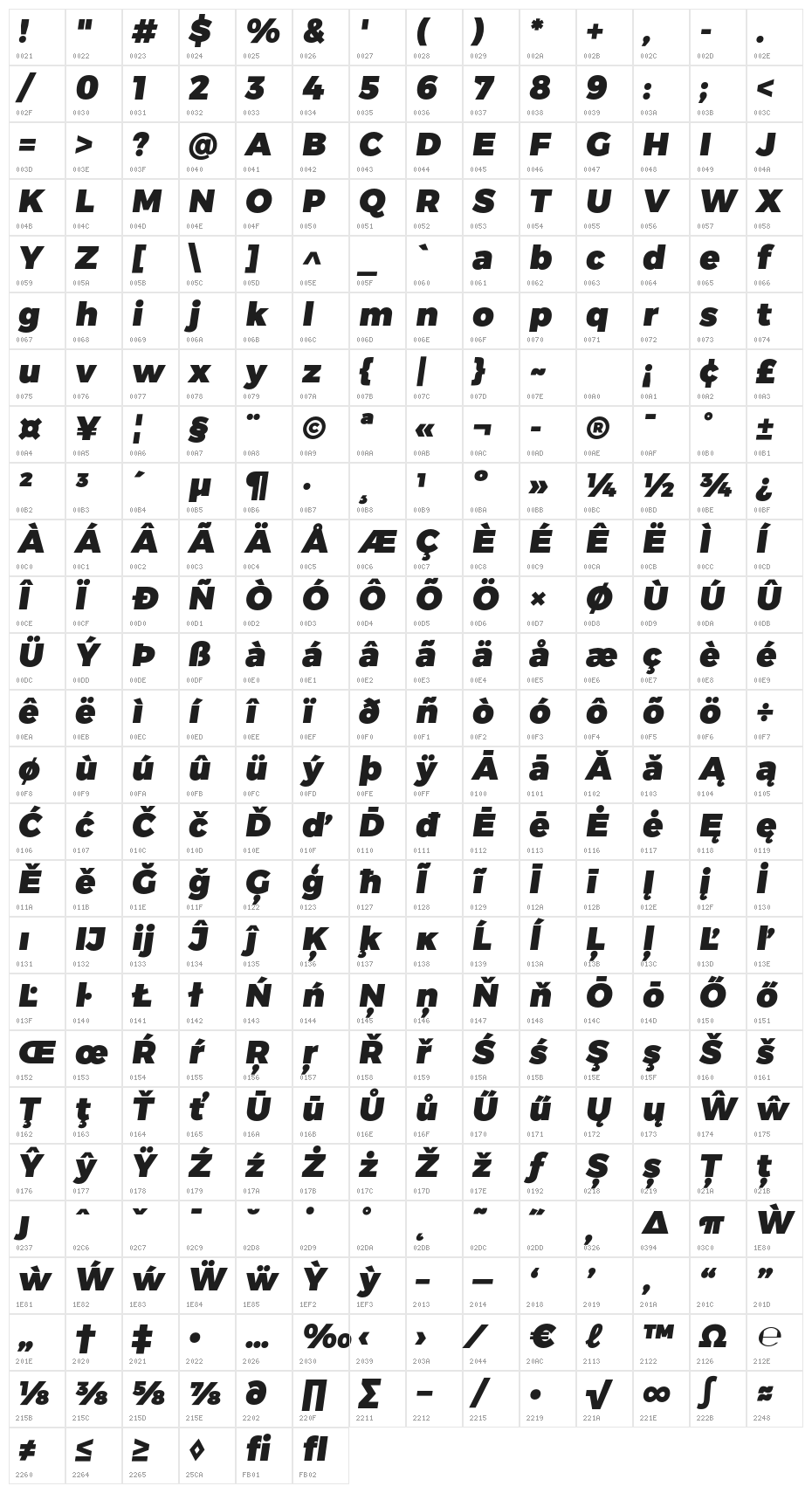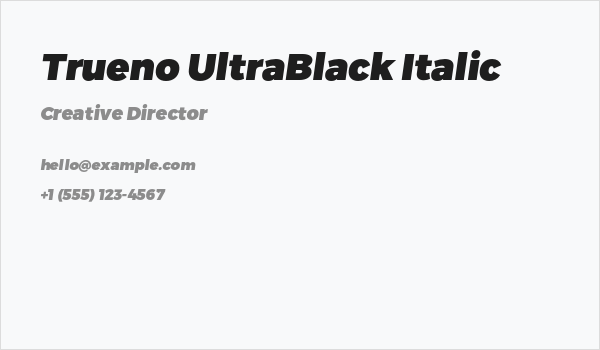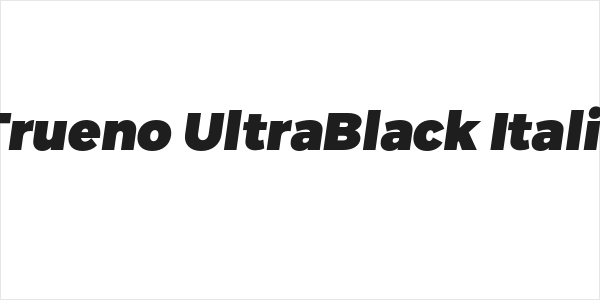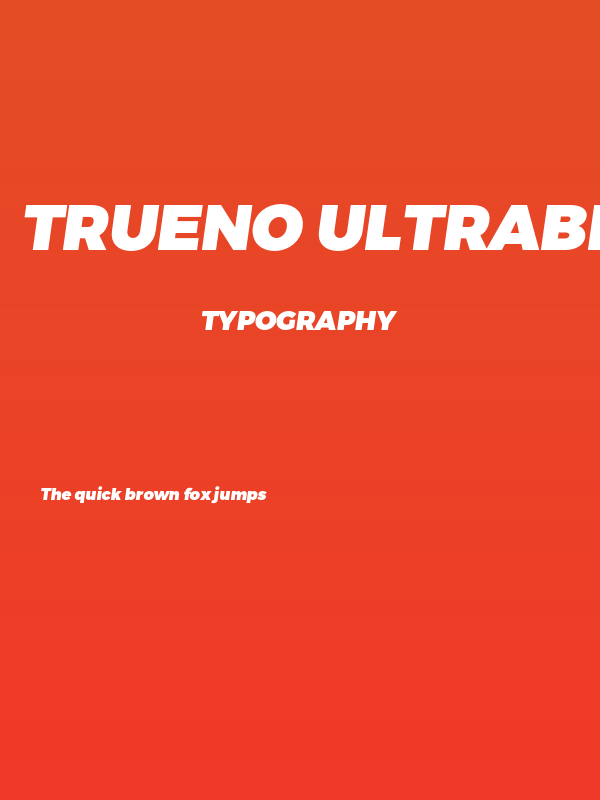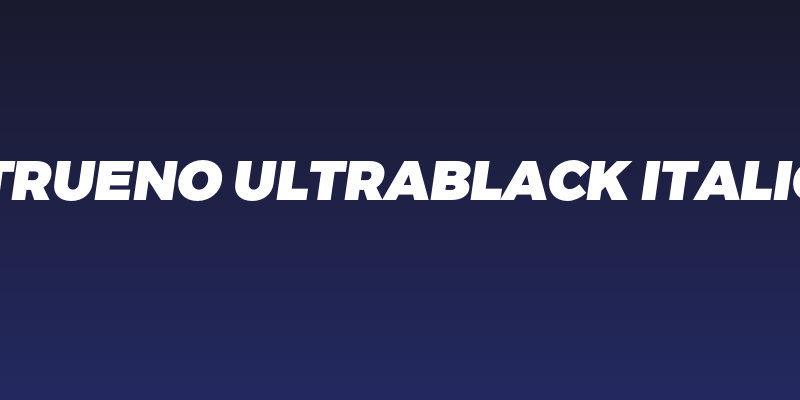
Trueno UltraBlack Italic Font
Trueno UltraBlack Italic Description
This font presents a bold and dynamic appearance with its ultra-black weight and italic style. The characters are robust and impactful, featuring a slight slant that adds a sense of movement and urgency. The uppercase and lowercase letters maintain a consistent thickness, ensuring readability while conveying strength. The numbers and special characters are equally bold, making them stand out prominently. The overall design is modern and sleek, suitable for making a strong visual statement.
| Proposed Projects | Ideal for headlines, branding, advertising, and any project requiring a strong, impactful typeface. |